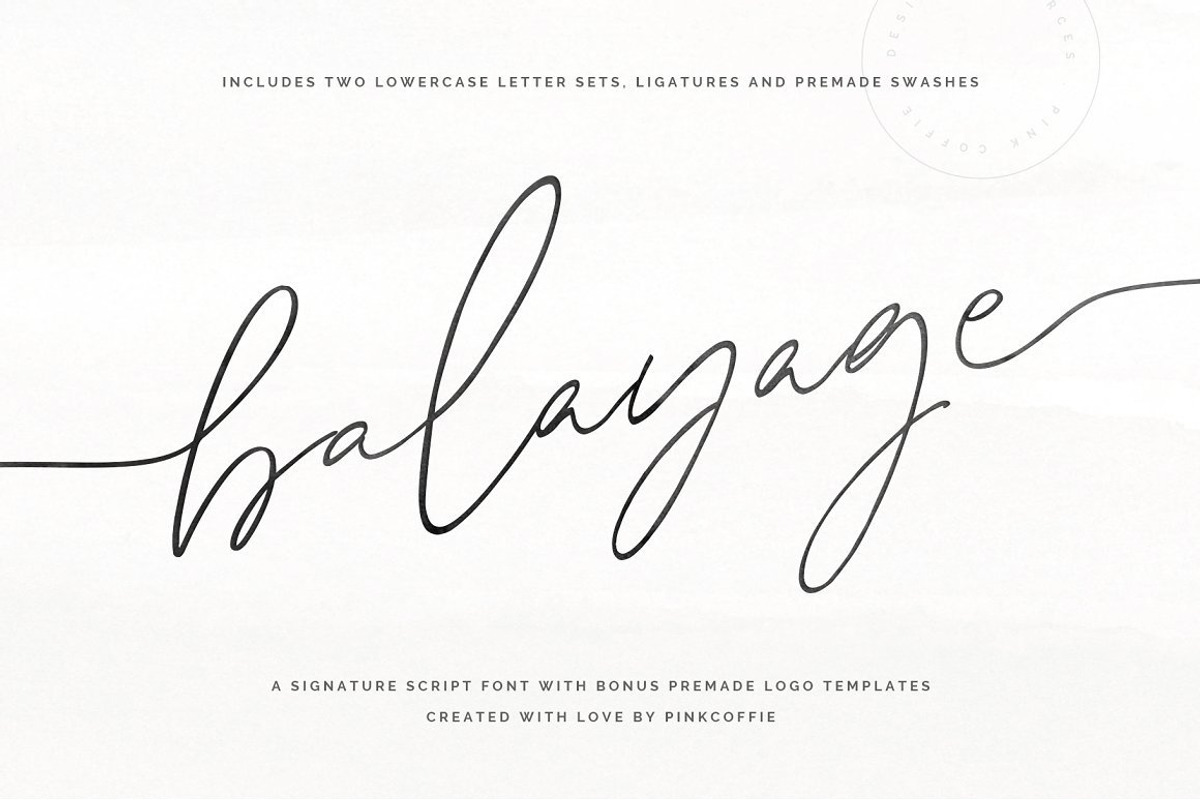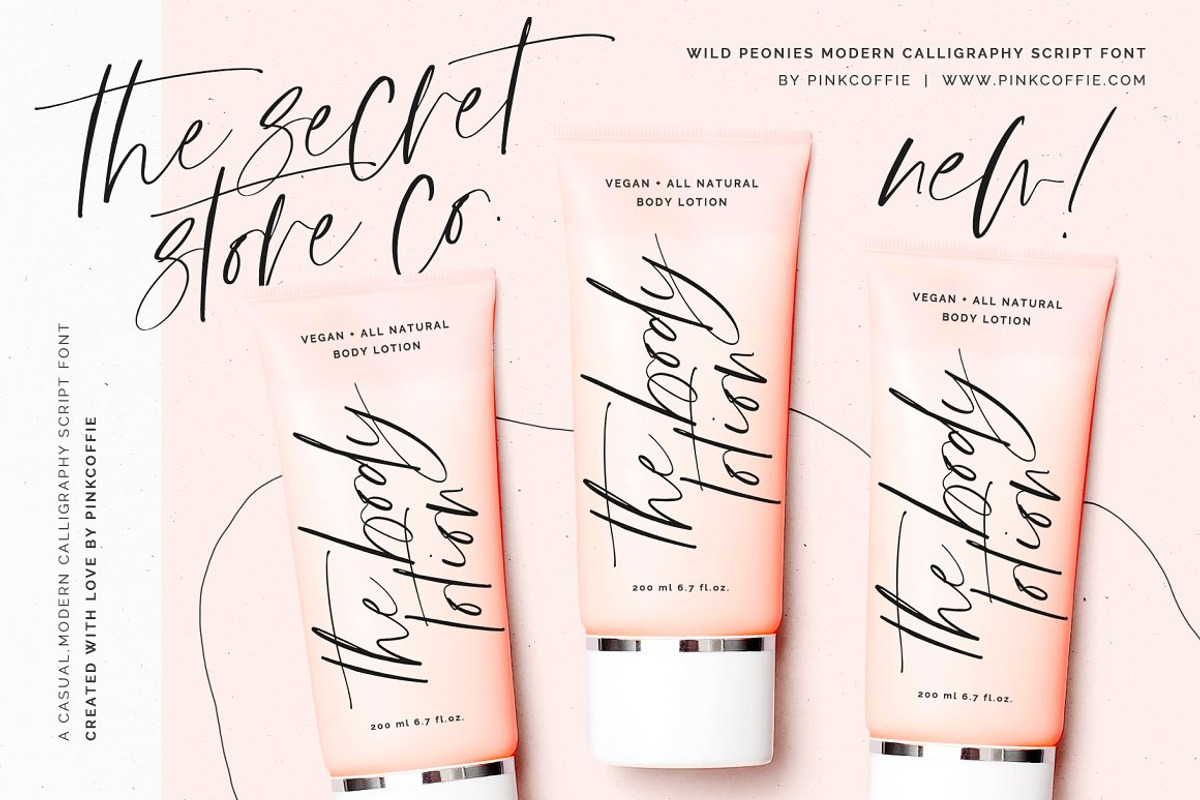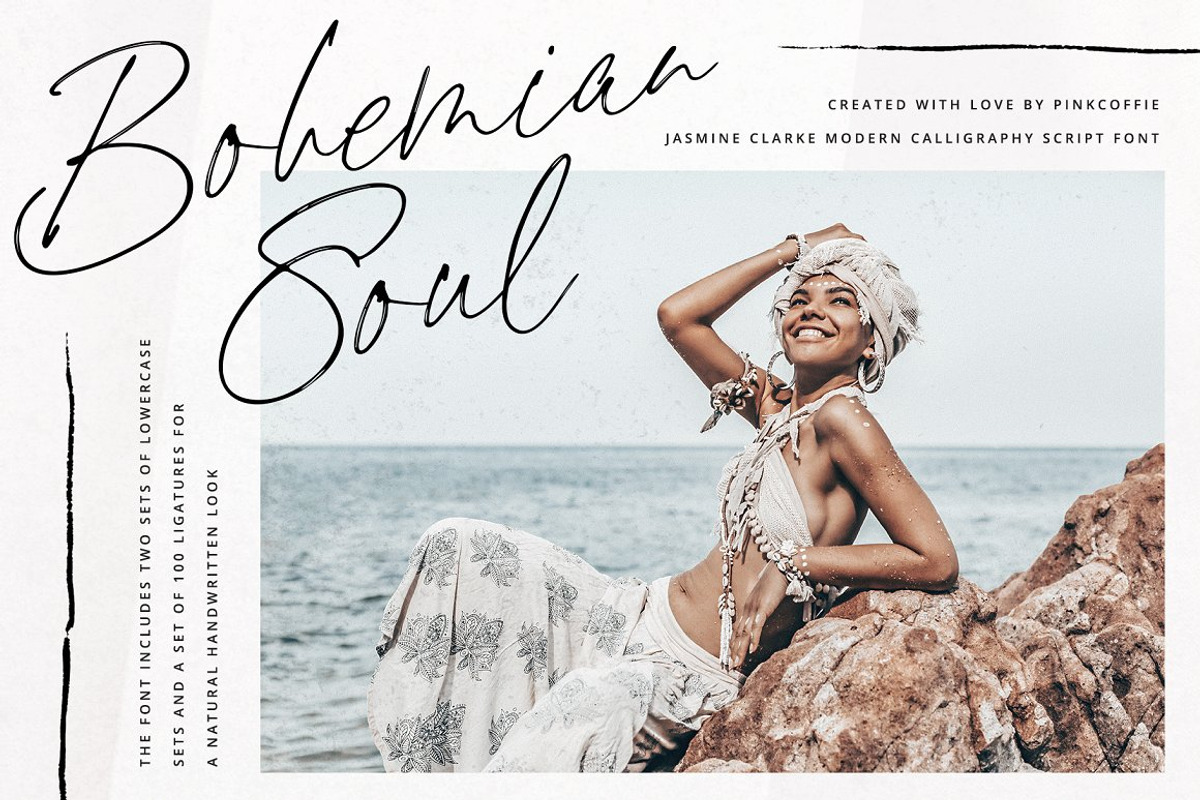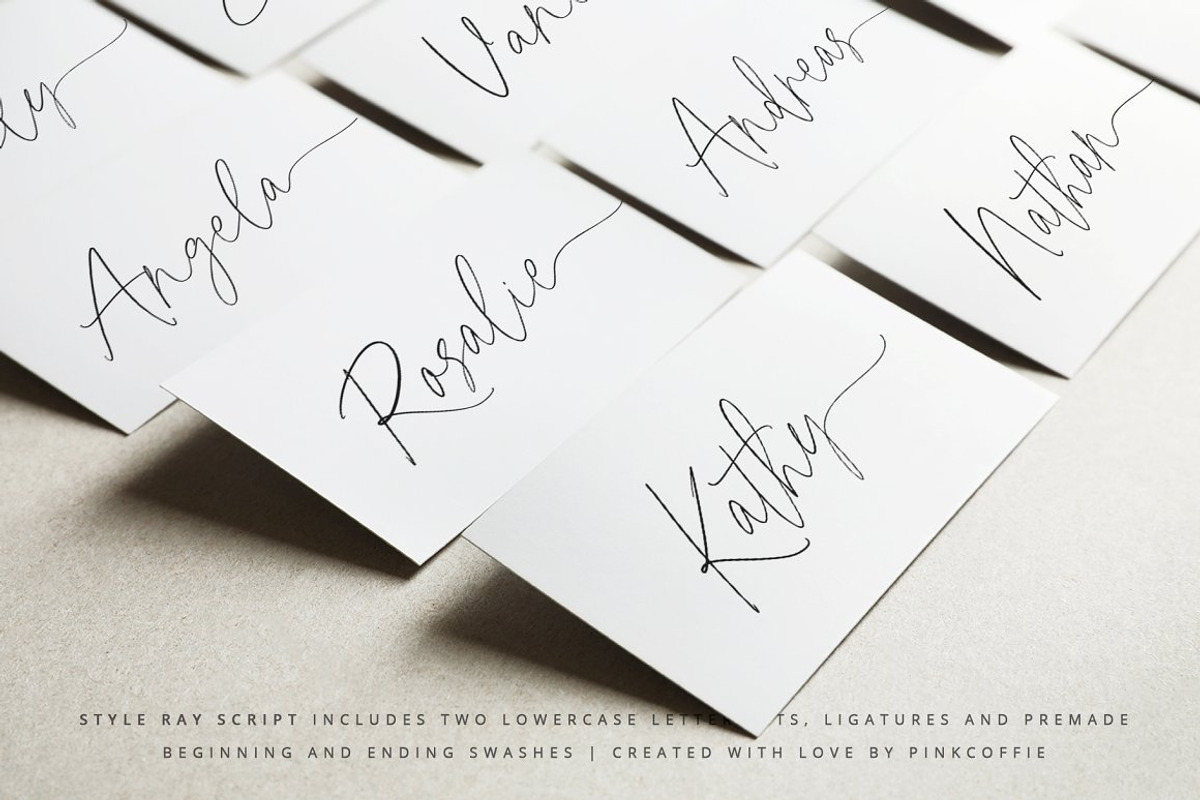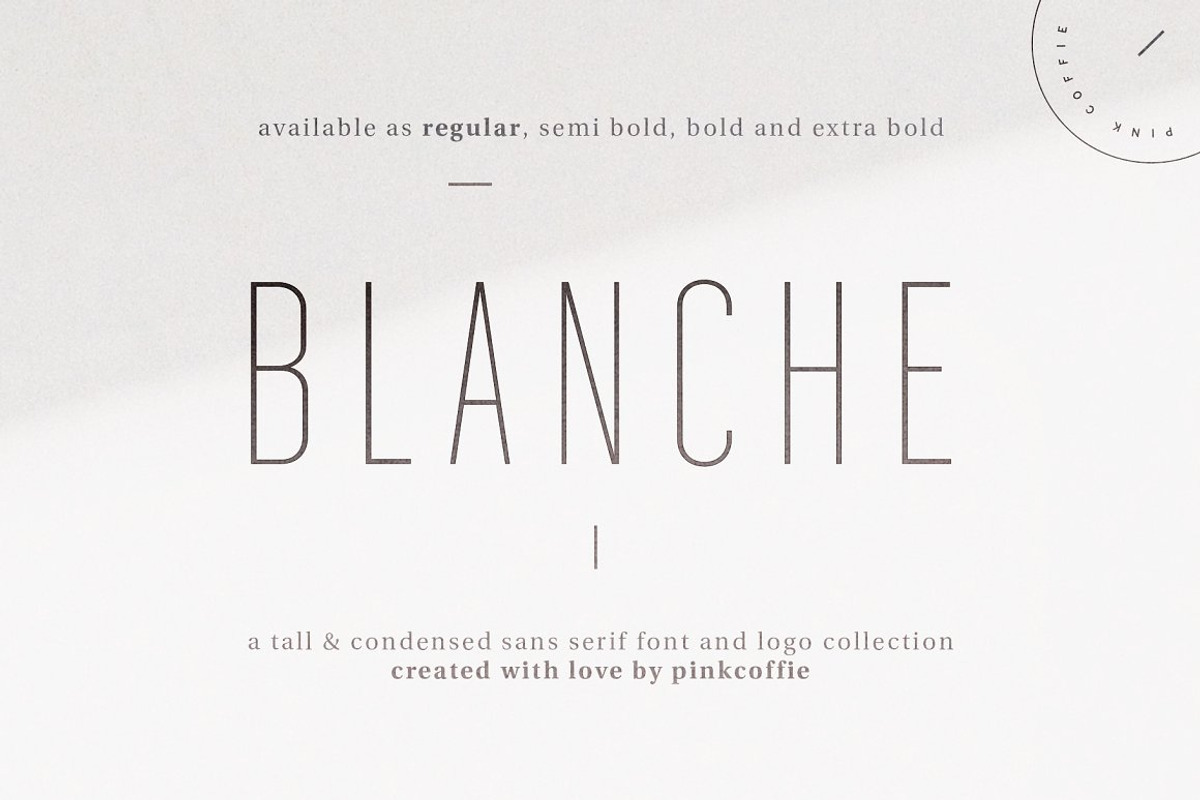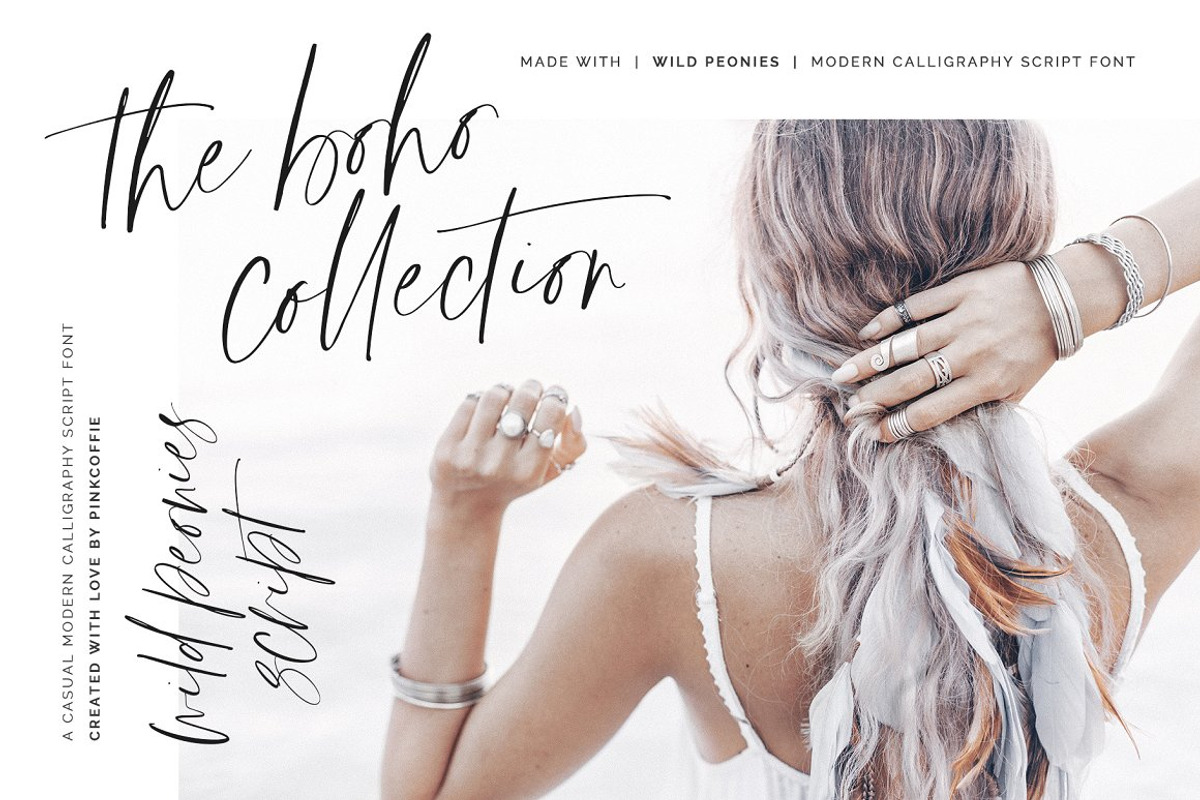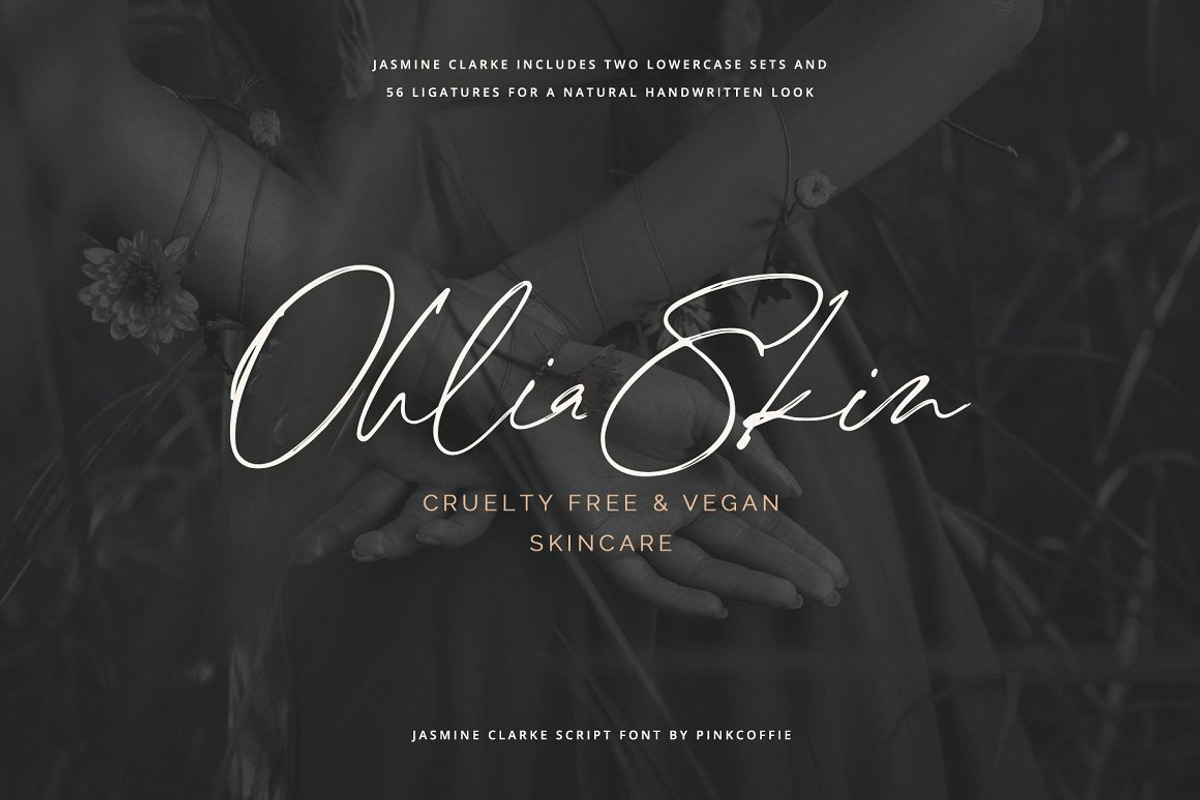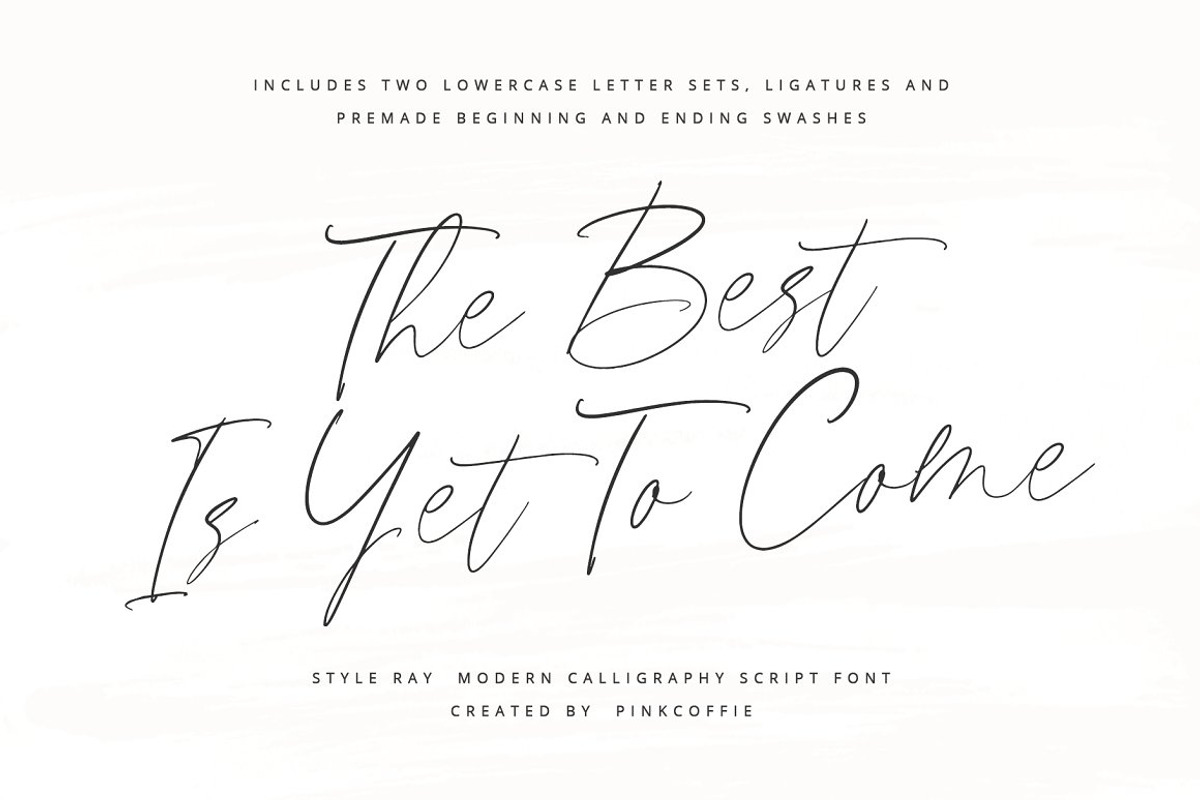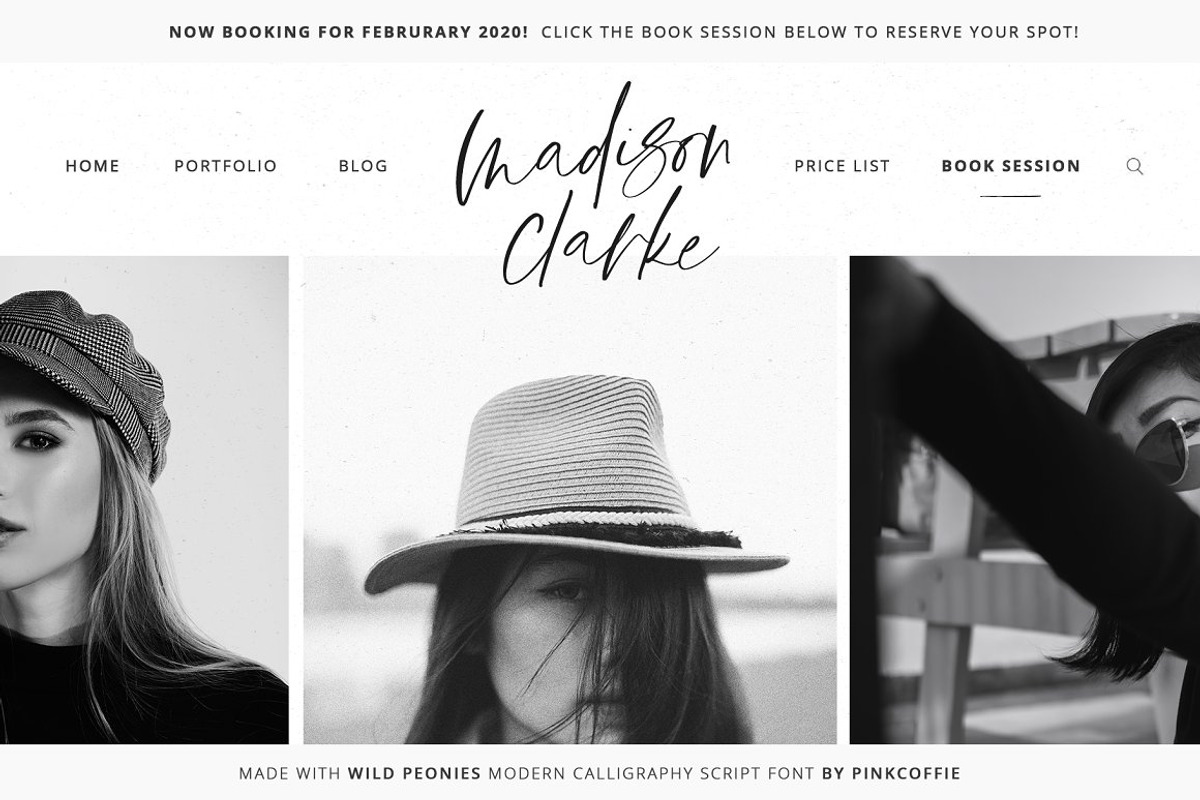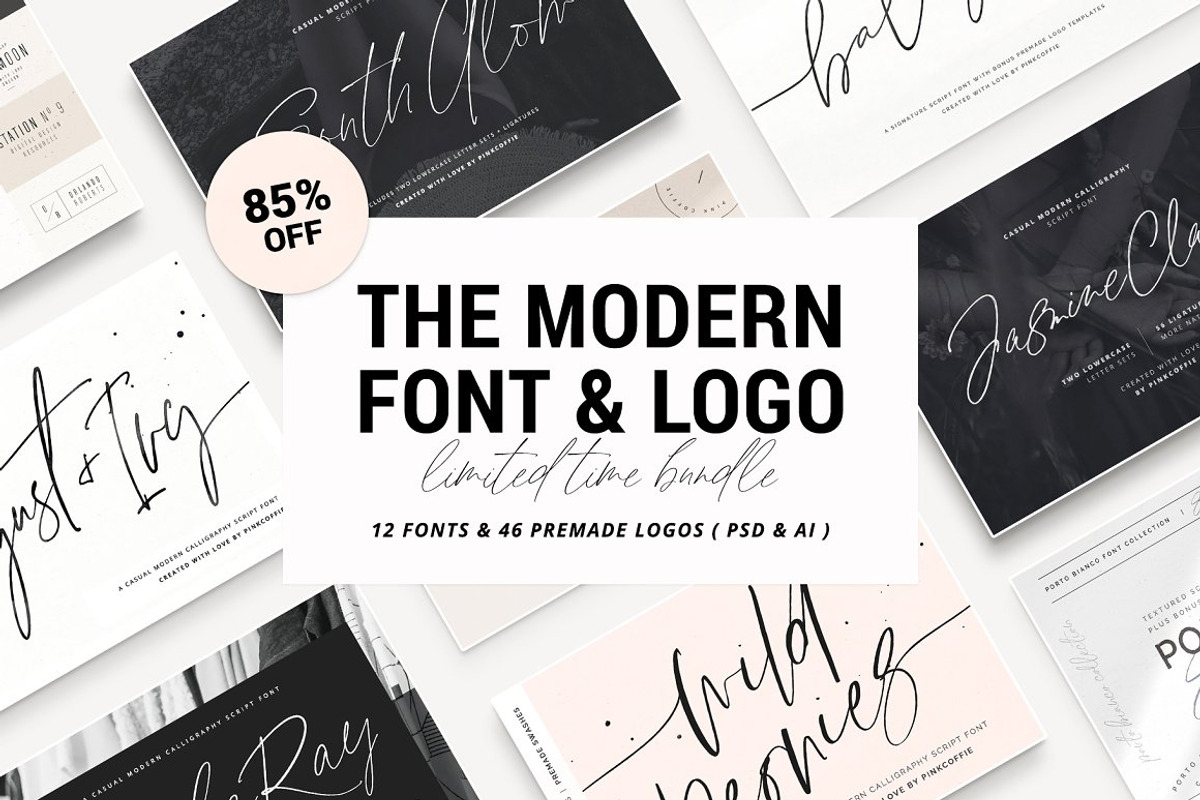
Modern Font & Logo Bundle - 85%Off
Here is a chance to save a whopping 85% and download a total of 12 versatile hand-lettered script fonts, modern calligraphy scripts & display typefaces + 46 ready-to-use premade logo templates for just $25! Yes, you heard that right!
South Glow | a casual-chic calligraphy script font - https://creativemarket.com/PinkCoffie/6904193-South-Glow-Casual-Chic-Calligraphy ( $22 )
Jasmine Clarke | a hand-lettered, slightly textured casual script font inspired by feminine branding & cosmetic packaging - https://creativemarket.com/PinkCoffie/6472903-Jasmine-Clarke-Casual-Chic-Font ( $30 )
Wild Peonies | a stylish modern calligraphy script with a whole lot of wilderness and character - https://creativemarket.com/PinkCoffie/4189464-Wild-Peonies-Modern-Calligraphy ( $30 )
August + Ivy | a chic modern calligraphy script font packed with alternates and premade lowercase swashes ( $22 )
Style Ray | a stylish casual modern calligraphy script featuring two lowercase letter sets & premade lowercase swashes - https://creativemarket.com/PinkCoffie/4539777-Style-Ray-Modern-Calligraphy ( $22 )
Balayage | a sleek modern calligraphy signature script font packed with lowercase swashes, alternates, and 6 premade logo templates - https://creativemarket.com/PinkCoffie/4095933-Balayage-Script-Logo-Templates ( $22 )
Blache Font + Logo Collection | 4 modern & condensed sans serif fonts and 18 ready-to-use, premade logo designs inspired by trendy minimal branding and natural cosmetic packaging - https://creativemarket.com/PinkCoffie/4123182-Blanche-4-Fonts-18-Premade-Logos ( $24 )
Porto Bianco Font Duo + Logo Collection | featuring 2 fonts - a semi-rustic, handlettered, rough edge sans serif, and a casual, chilled textured script + 22 ready to use premade logo templates - https://creativemarket.com/PinkCoffie/3980188-Porto-Bianco-Font-Duo-22-Logos ( $35 )